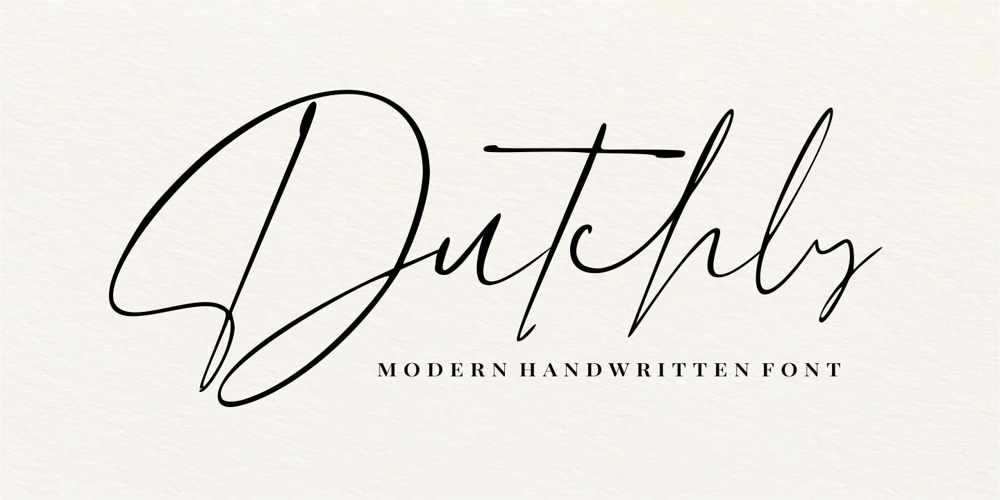
Dutchly Font Family was designed by Good Java and published by Good Java Studio. Dutchly contains 1 styles and family package options. Dutchly is a modern, handwritten, signature font. It is perfect for logos, invitations, stationery, wedding designs, social media posts, advertisements, product packaging, product designs, labels, photography, watermarks, special events and more. Dutchly includes 140+ Ligatures and multi-lingual support.